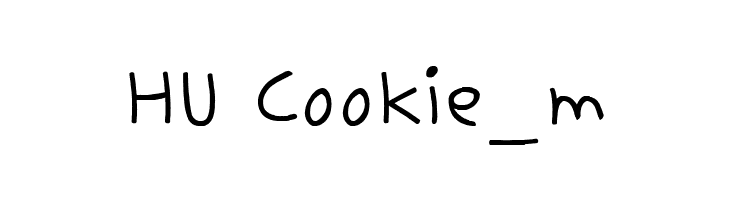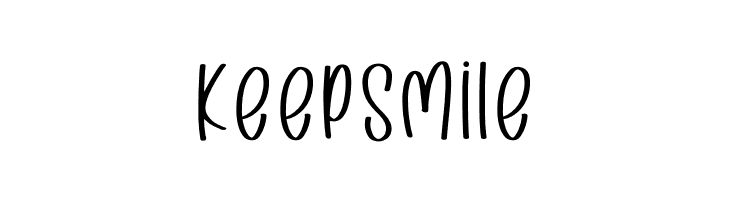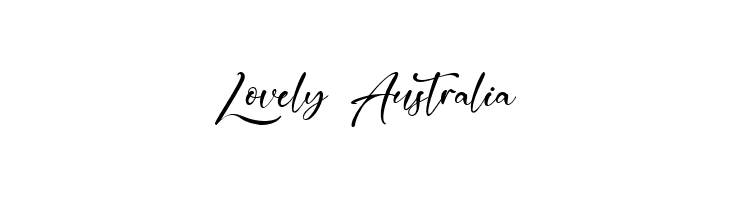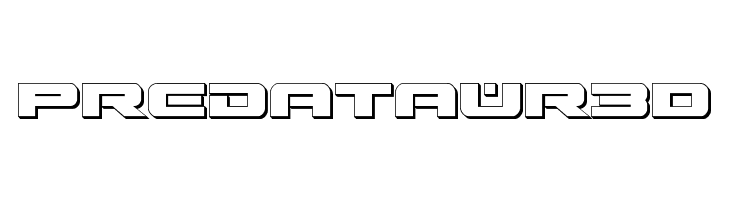
A playful handwritten font with a casual and friendly style.
A bold, angular font with a dynamic, modern style.
A bold, playful handwritten font with rounded, inviting characters.
A light, elegant serif font with a slight italic slant and classic charm.
A flowing, cursive font with elegant, sweeping strokes and calligraphic style.
A lively handwritten font with bold, fluid strokes and a casual style.
A bold, angular font with sharp edges and a dynamic, artistic style.
An abstract, artistic font with thin, fluid strokes and a modern, decorative style.
A modern, geometric sans-serif font with rounded edges and consistent stroke width.
A graceful script font with flowing, interconnected letters and artistic swashes.